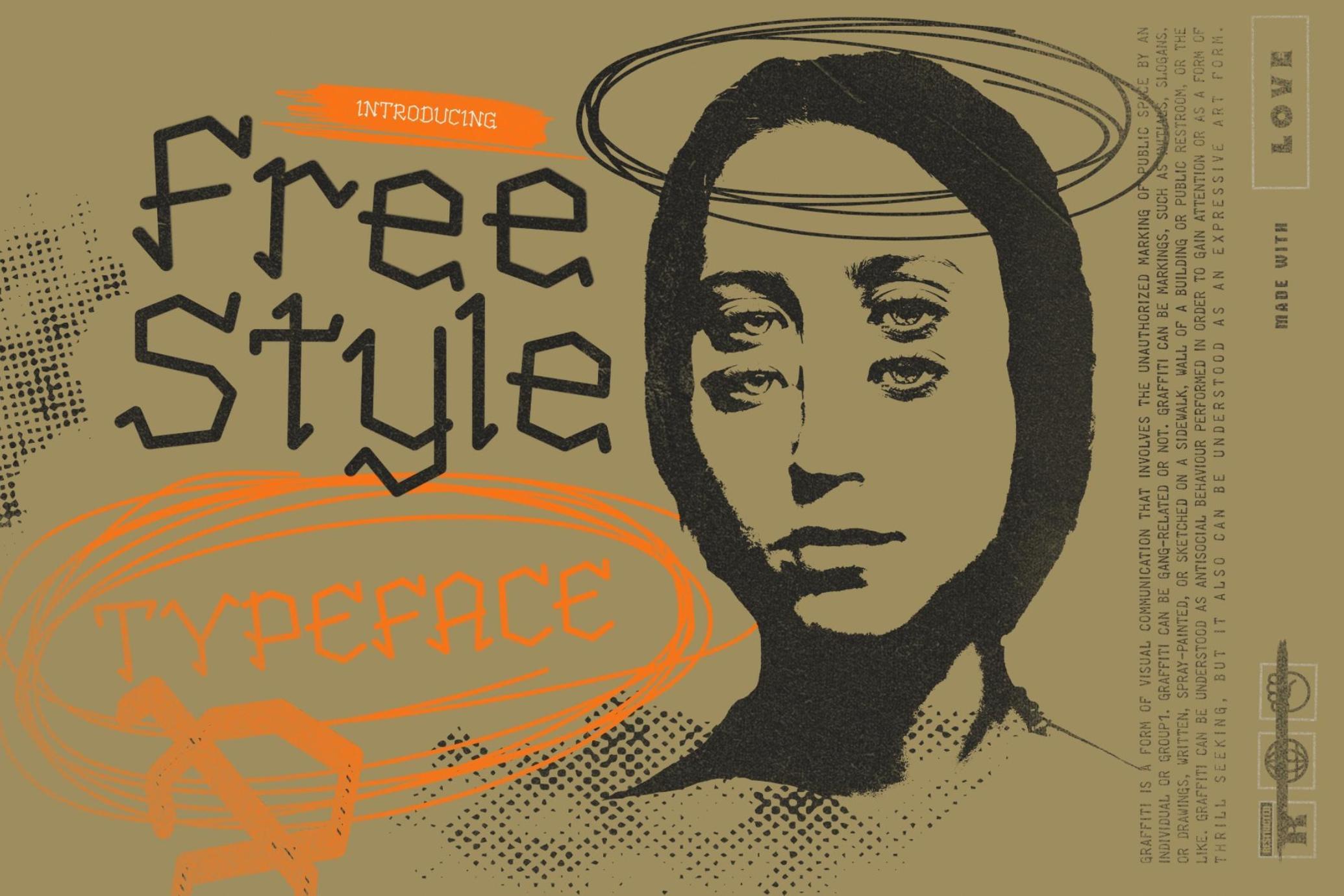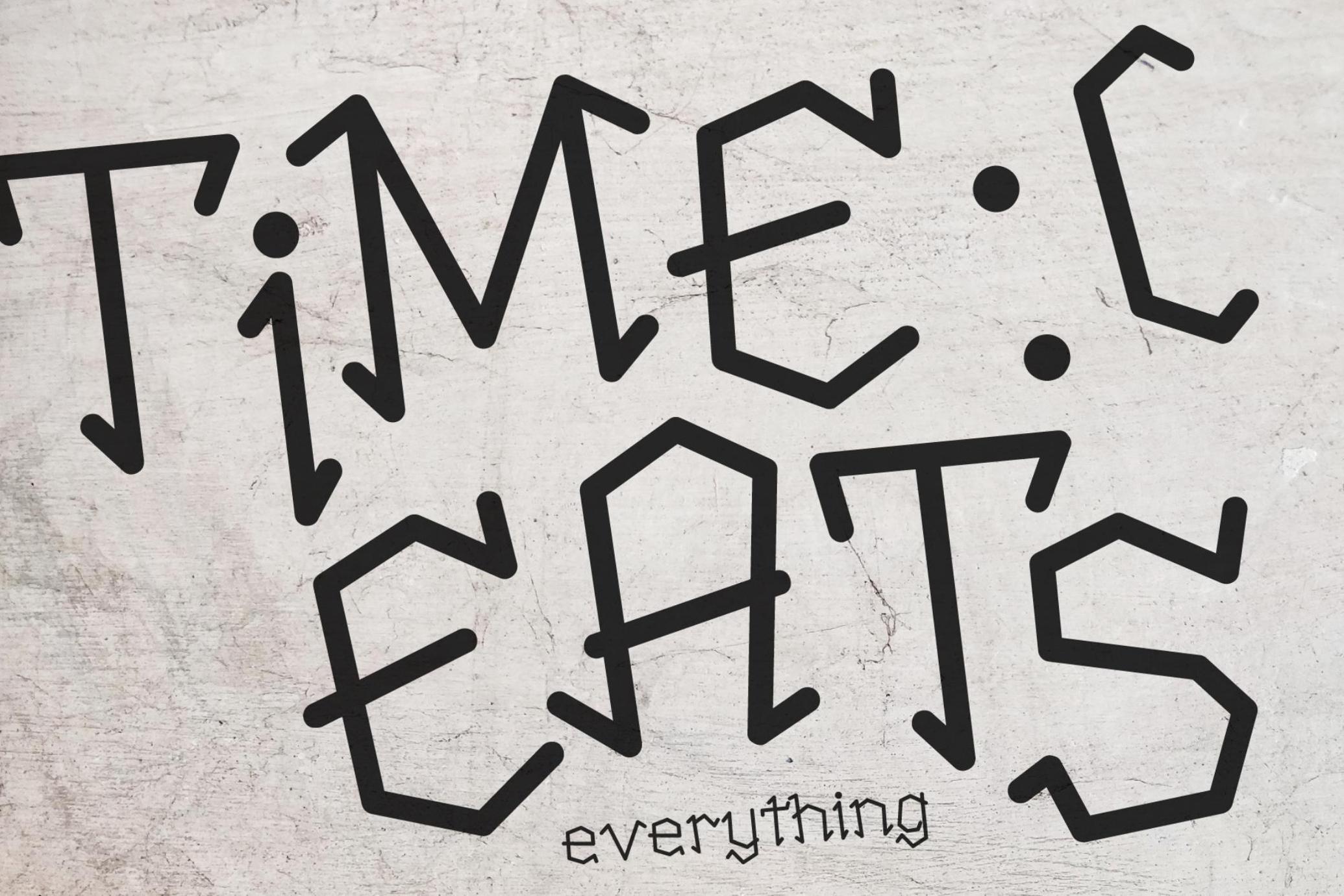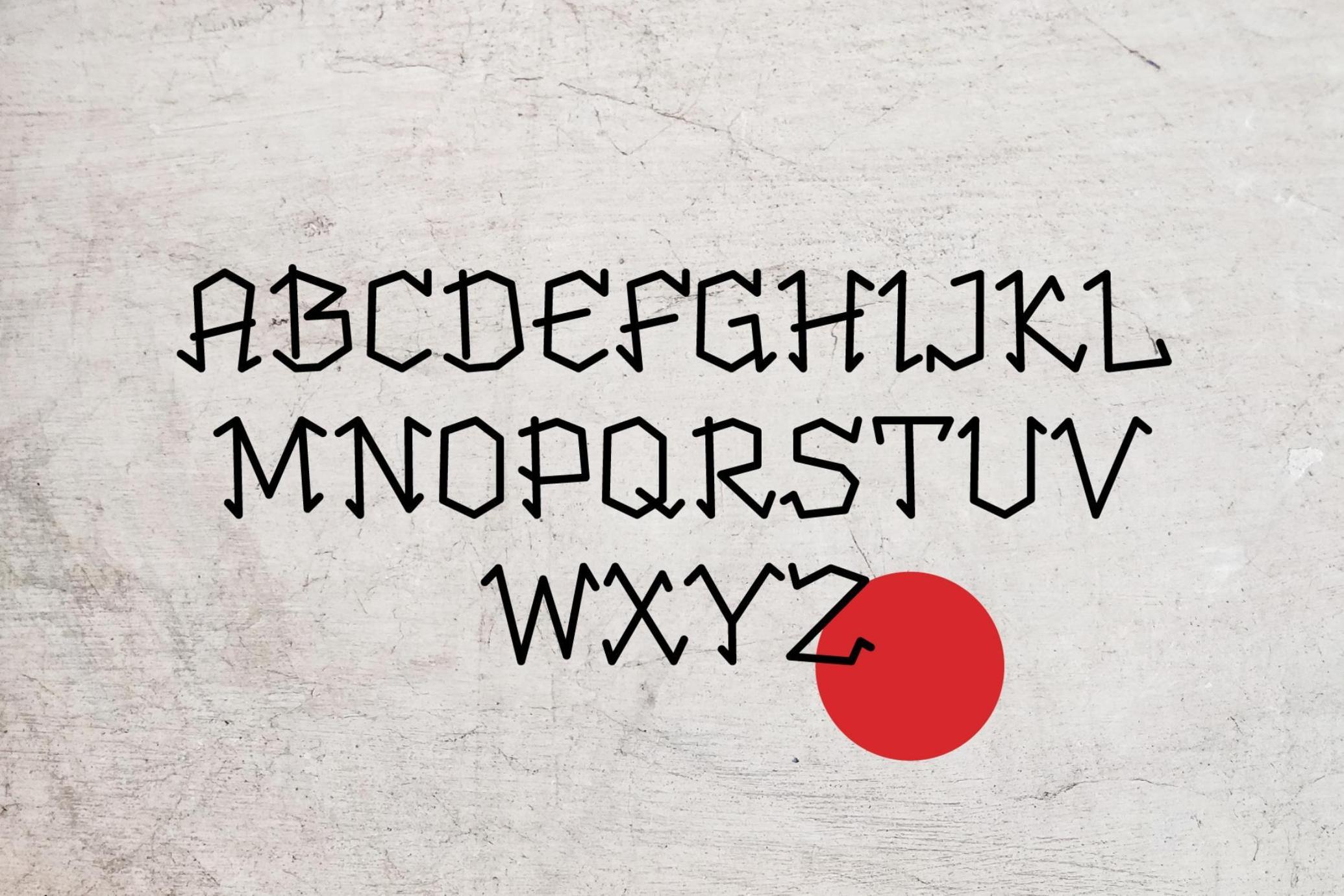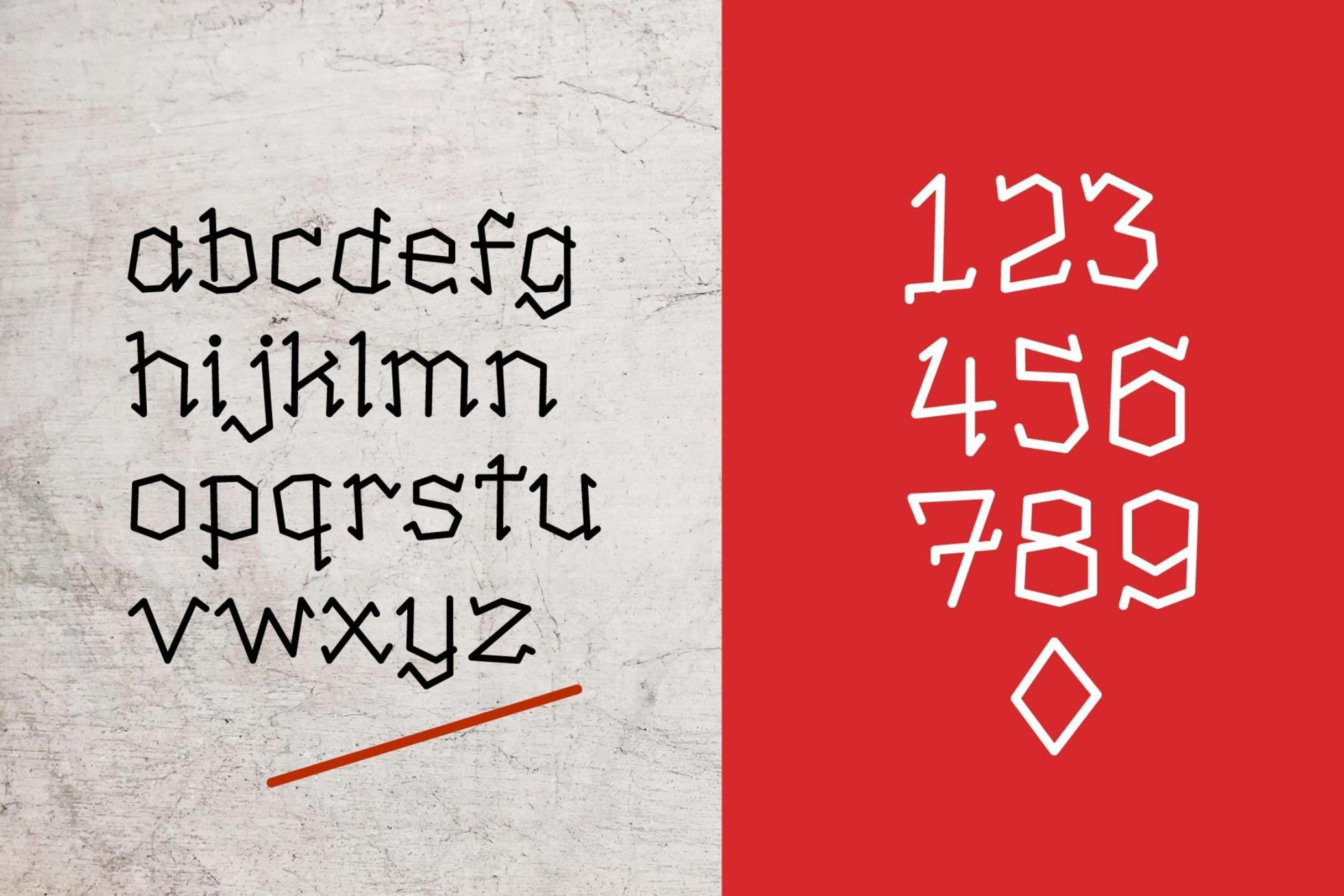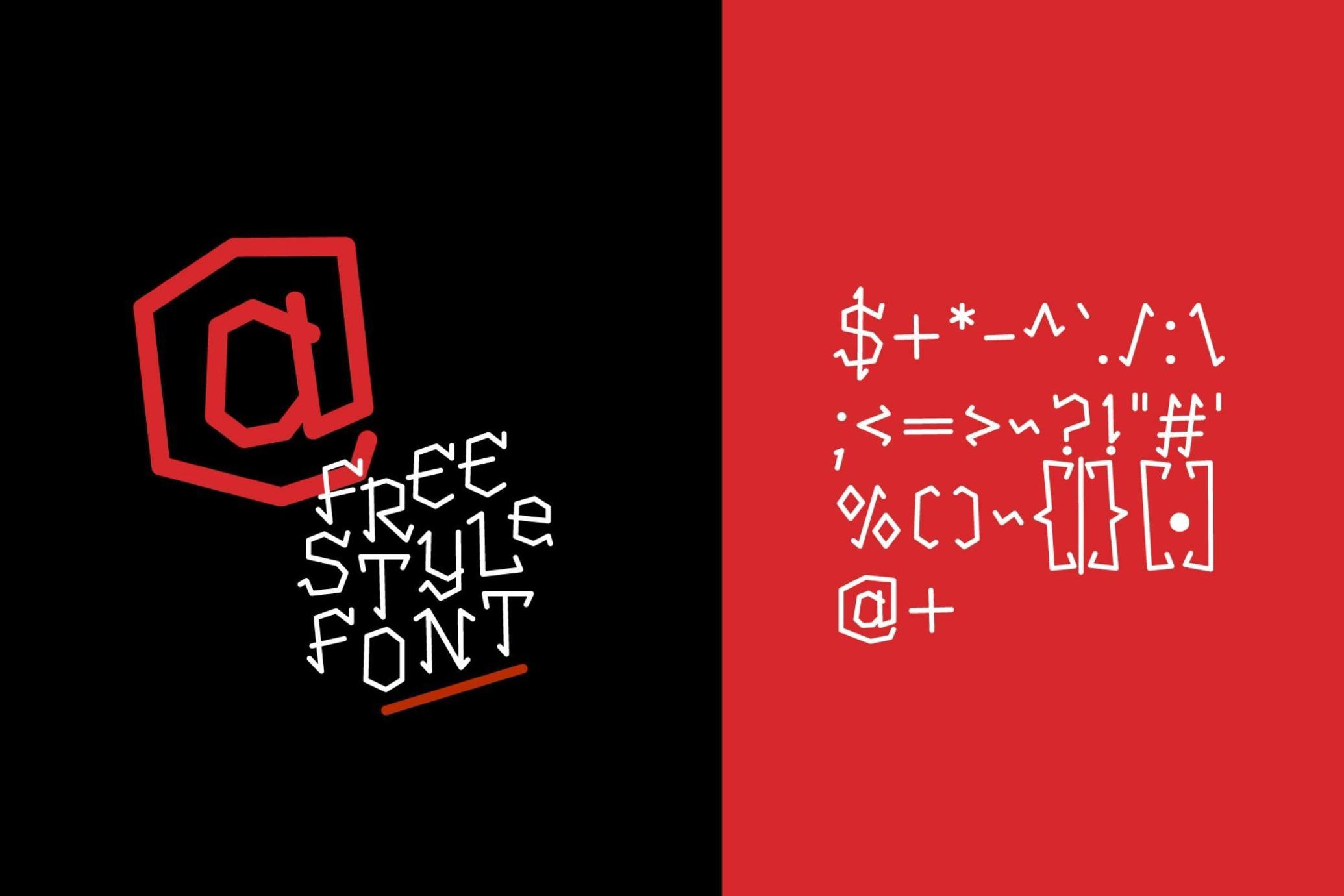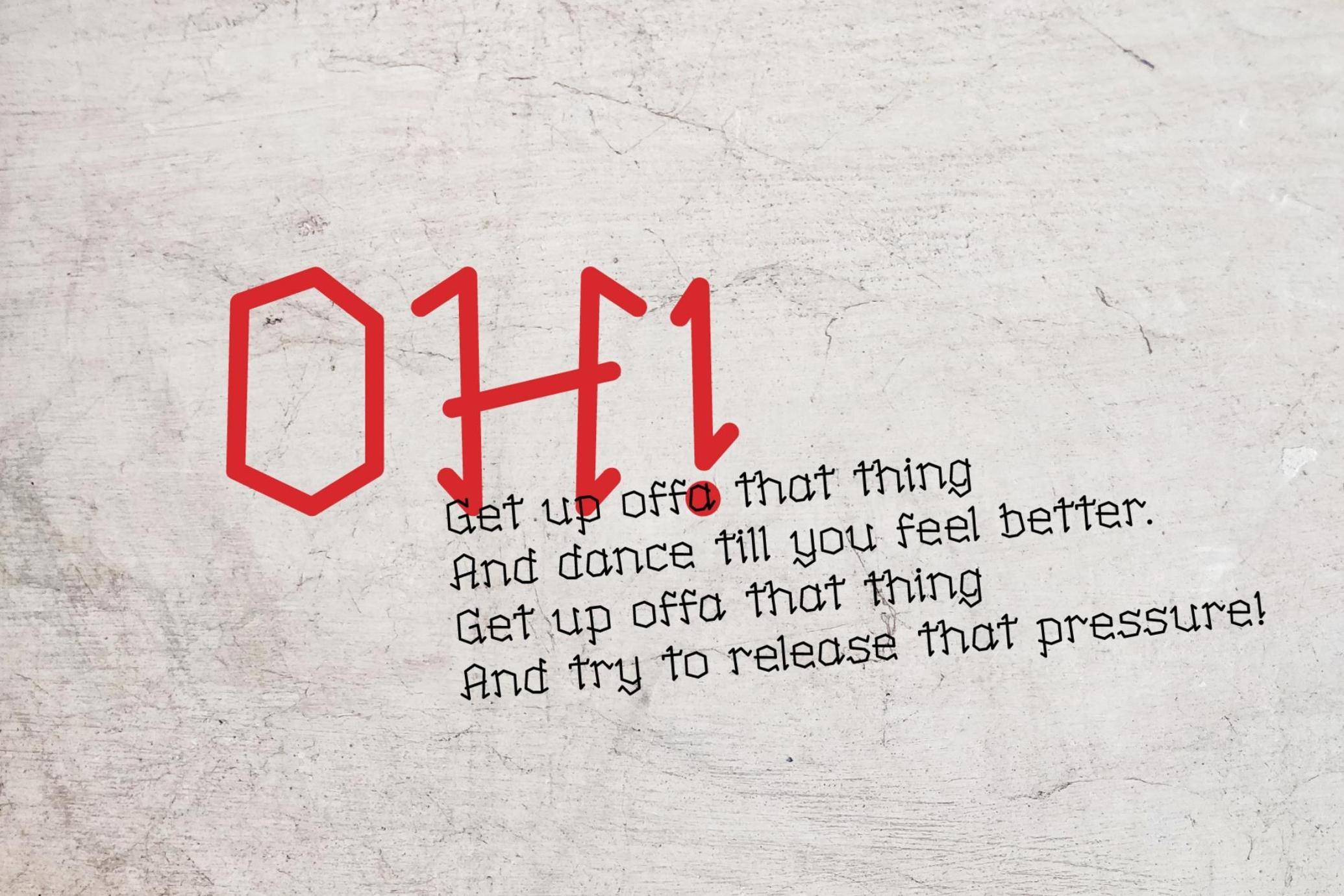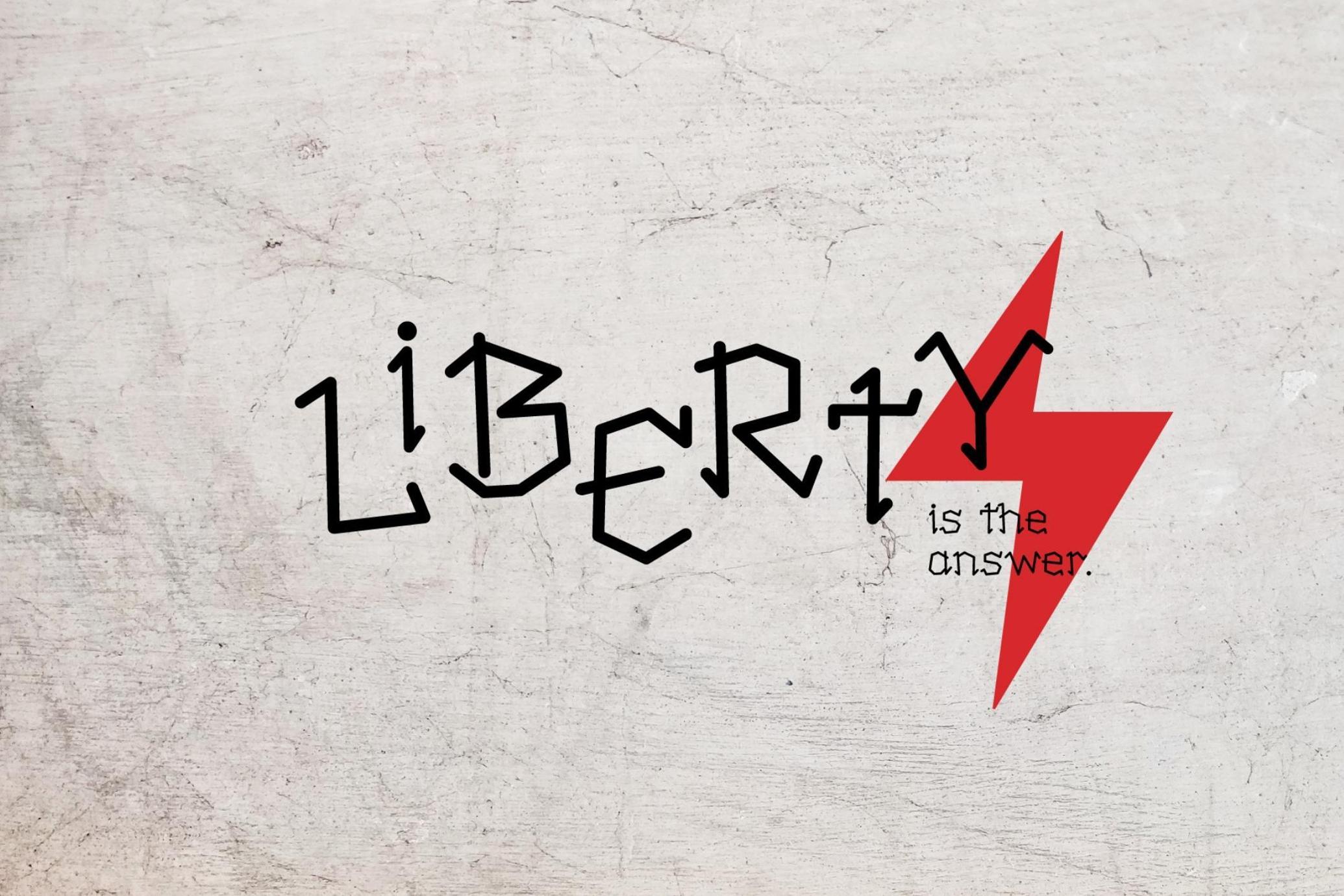
Freestyle - Graffiti Display
Freestyle is an authentic graffiti typeface. It was inspired by urban art and tags which you can find all over New York City. This modern street font is distinctive and memorable, making it perfect for vintage or modern designs. If you're trying to evoke that nostalgic era of the 1980-90s in NYC, then Freestyle is for you.